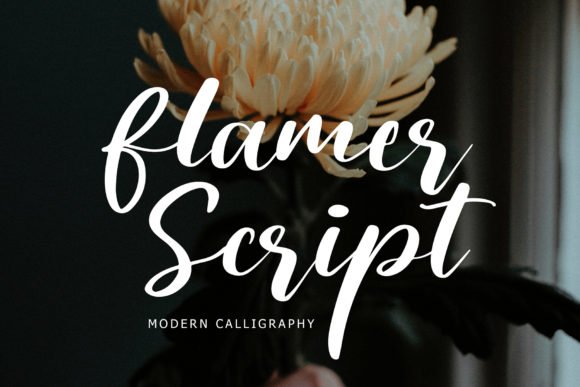
Introduction to Flamer Script Font
Flamer Script font is the epitome of modern calligraphy with the combination of strong characters and soft scripted swashes.
Key Features of Flamer Script Font